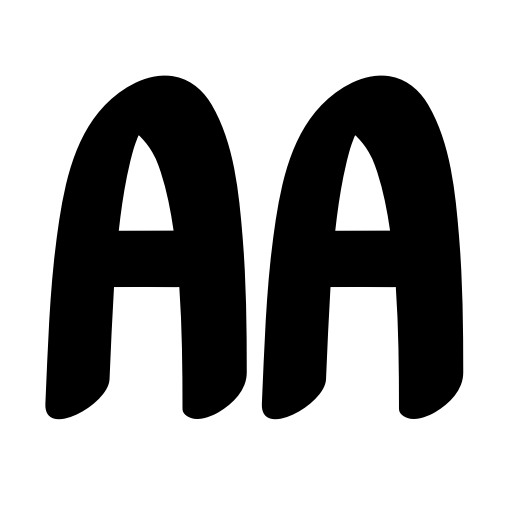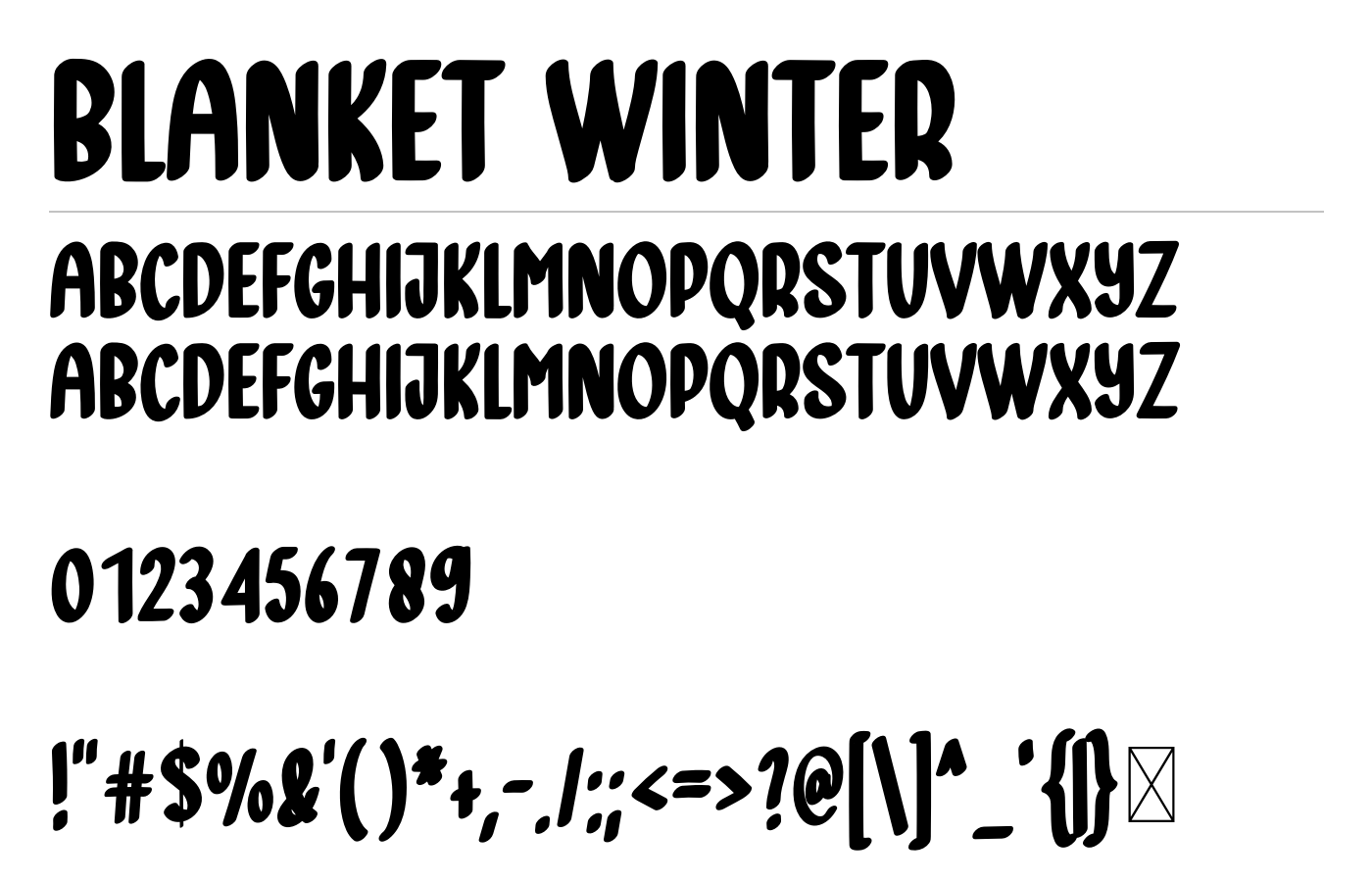
Blanket Winter is a bold and playful sans serif font with a hand-drawn feel, featuring slightly rounded, irregular letterforms that add warmth and personality. Its friendly style, chunky weight, and casual curves make it ideal for fun, approachable branding, children’s materials, and seasonal or cozy-themed designs. This font works well in headlines and logos where a charming, informal touch is desired.
Blanket Winter Font
About Blanket Winter Font